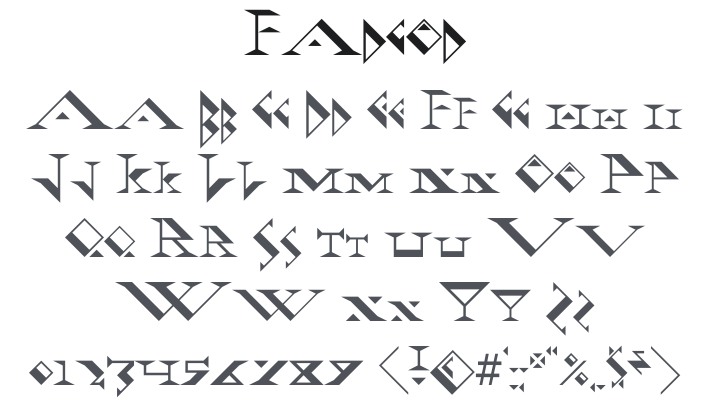
Fadgod Font
About Fadgod
Fadgod is a bold, triangular display typeface built entirely from sharp, pointed geometric shapes — every letterform bristles with angular cutouts and diamond-like strokes that radiate futuristic, lounge-cool energy. Mixing caps and lowercase unlocks even more visual variety. Great for sci-fi branding, video game titles, nightclub graphics, tech posters, and any headline that needs a distinctly sharp, edgy personality.